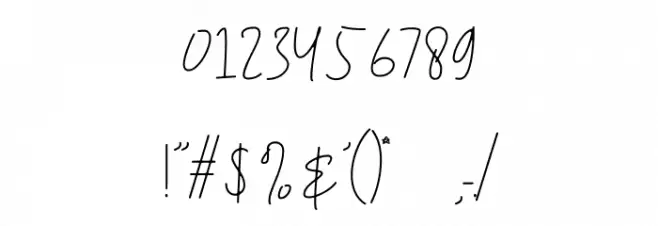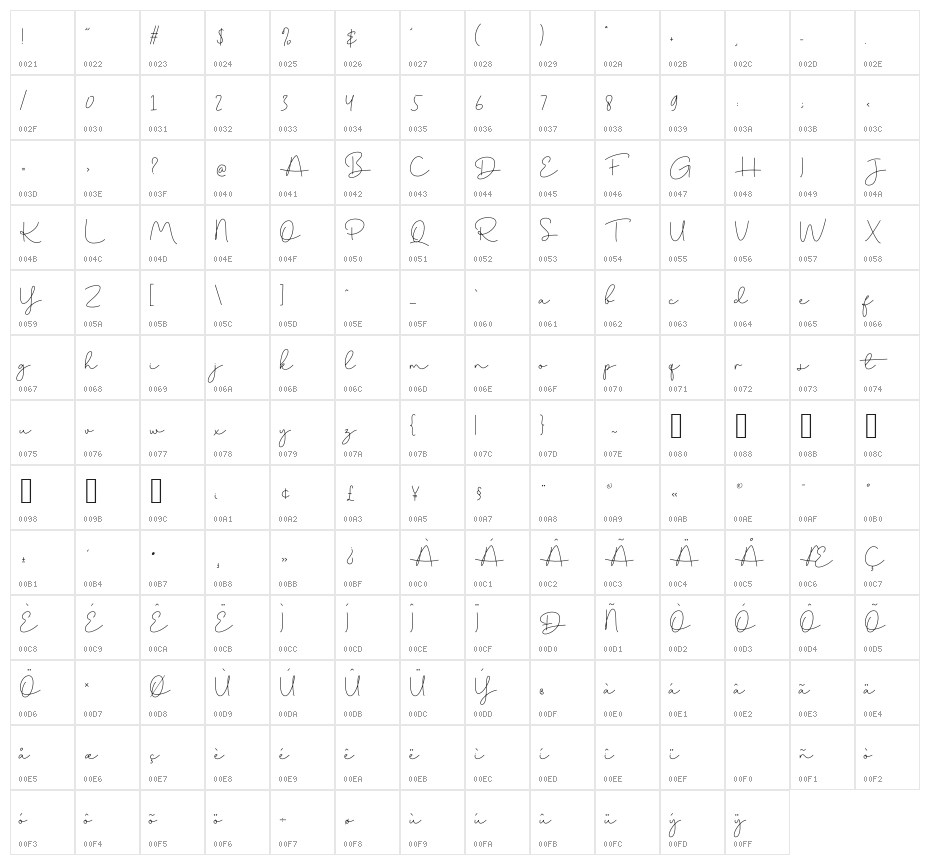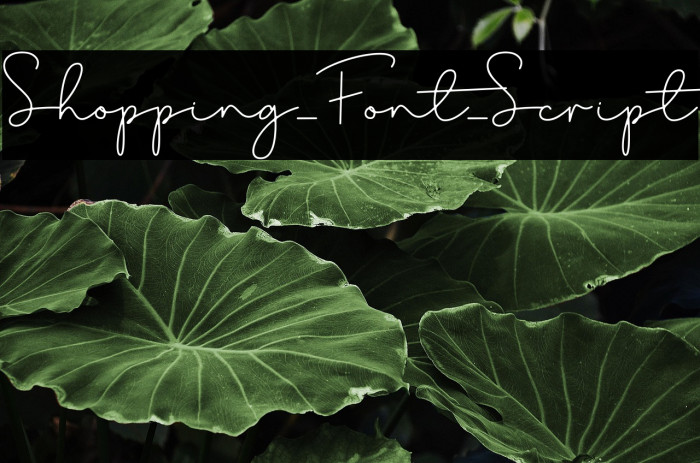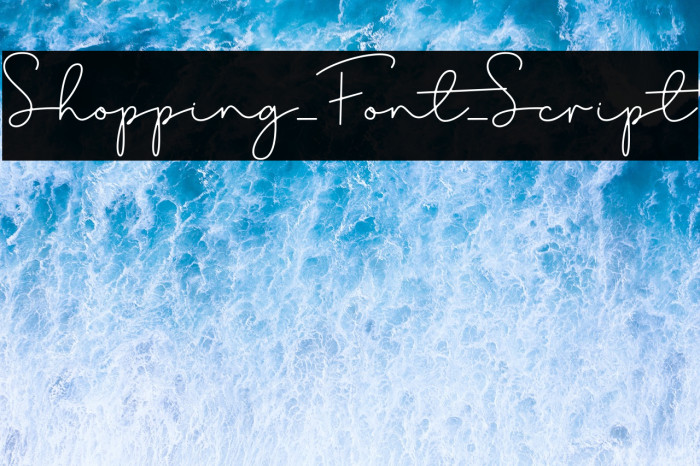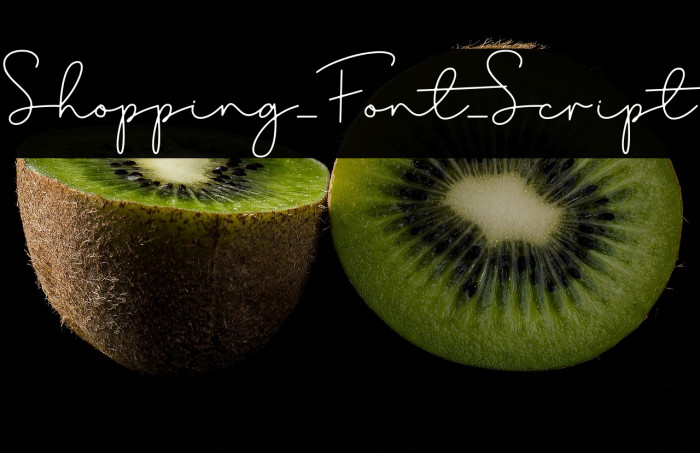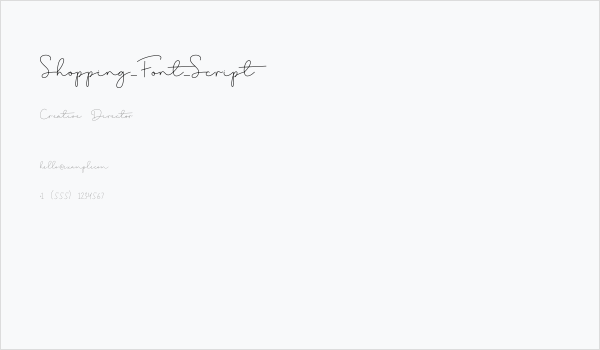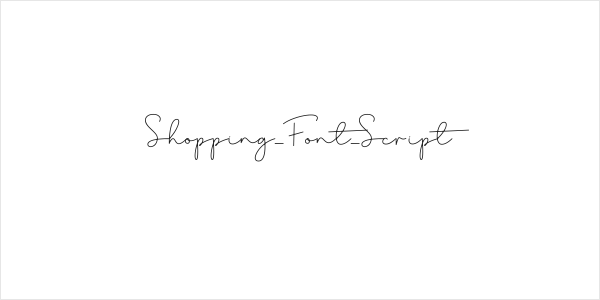
Shopping_Font_Script Font
Shopping_Font_Script Description
This font features a lively and flowing script style, characterized by its elegant and continuous strokes. The uppercase letters are tall and slightly slanted, giving a sense of movement and grace. The lowercase letters are more compact, maintaining a consistent flow with subtle loops and curves. The numerals are distinct yet harmonious with the overall script style, while the special characters blend seamlessly with the alphabet, enhancing the font's versatility. The thin lines and delicate curves make it suitable for projects that require a personal and sophisticated touch.
A lively and elegant script font with flowing, continuous strokes from Regular fonts.
- Proposed Projects: Ideal for wedding invitations, greeting cards, branding, and social media graphics.
- Weight: Light
- Use Case: Logos, Headlines, Decorative text